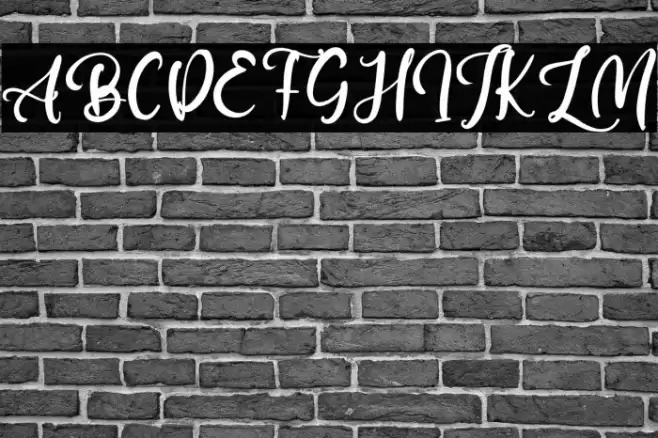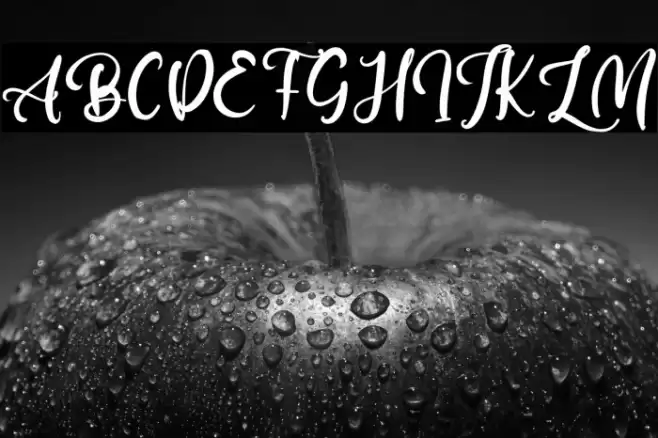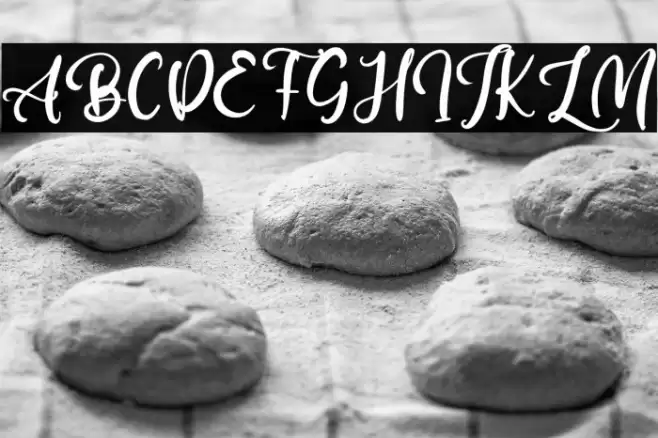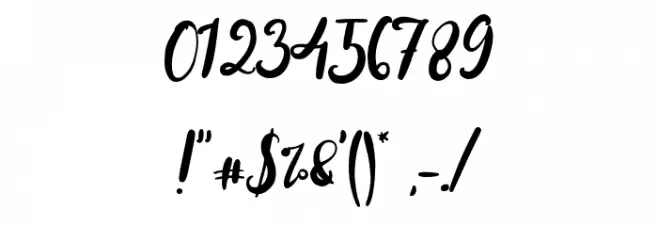
IanGillett Font
IanGillett Description
This font features a flowing, cursive style with elegant, sweeping curves and a handwritten appearance. The uppercase letters are bold and expressive, with a slight slant that adds a dynamic feel. The lowercase letters maintain a consistent style, offering a smooth transition between characters. Numbers are clear and legible, maintaining the same artistic flair as the letters. Special characters are creatively integrated, matching the overall aesthetic. The font's design is both sophisticated and playful, making it suitable for a variety of creative projects.
A bold, cursive font with elegant, sweeping curves and a handwritten style from Uncategorized fonts.
- Font: IanGillett